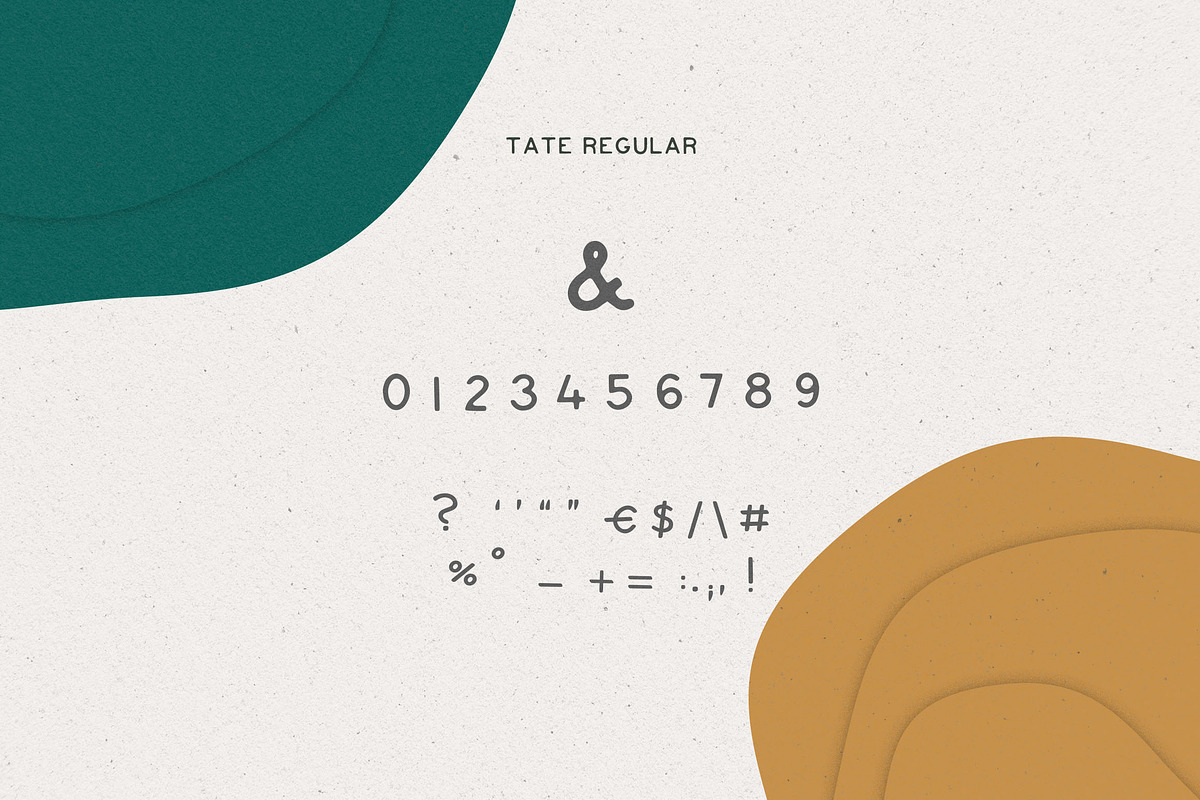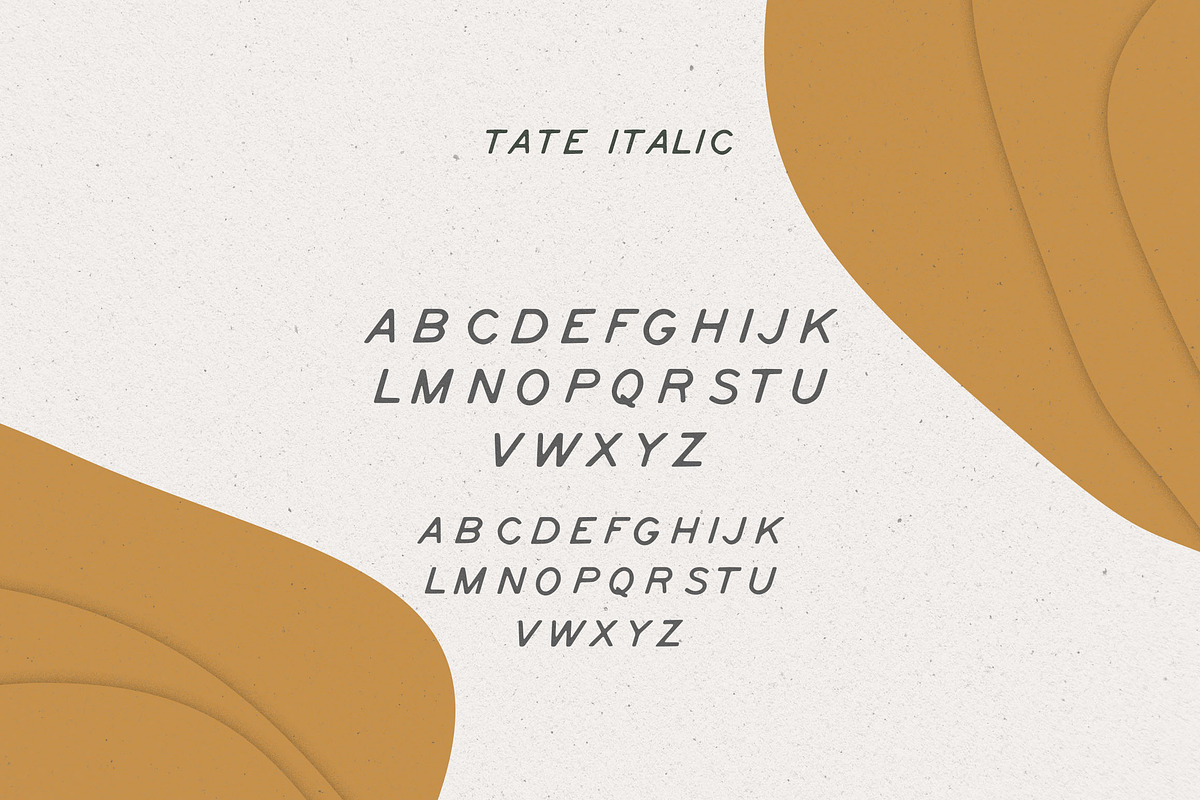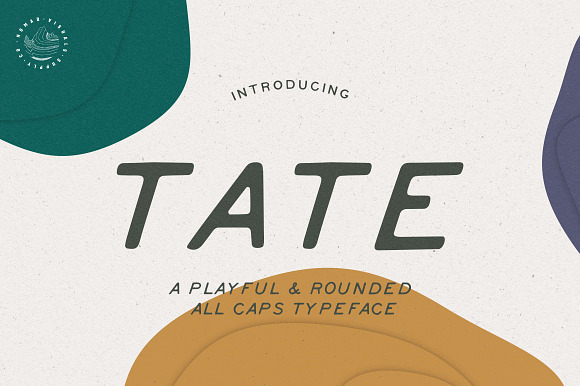
Tate Font
Now Tate font includes new special characters with accents Å Ø Ä Ö Á É Í Ó Ú Ü Ñ Ą Ć Ę Ł Ń Ó Ś Ź Ż À È Ì Ò Ù in both versions Regular and Italic.
TATE - A playful & rounded all-caps typeface
Tate is a hand drawn font that features uppercases, numbers and a basic set punctuation.
Have fun using Tate in logo design, brands and labels. It's perfect to give a unique vibe to your digital products and websites.